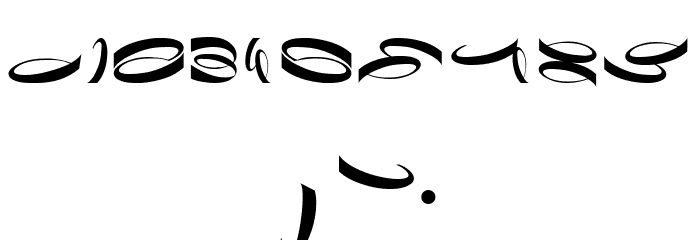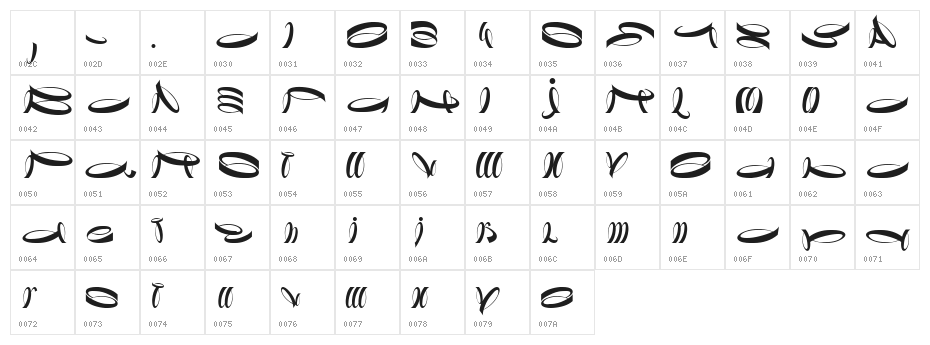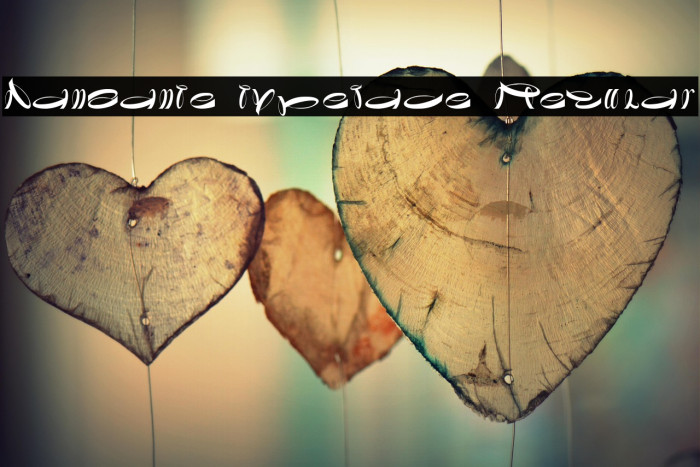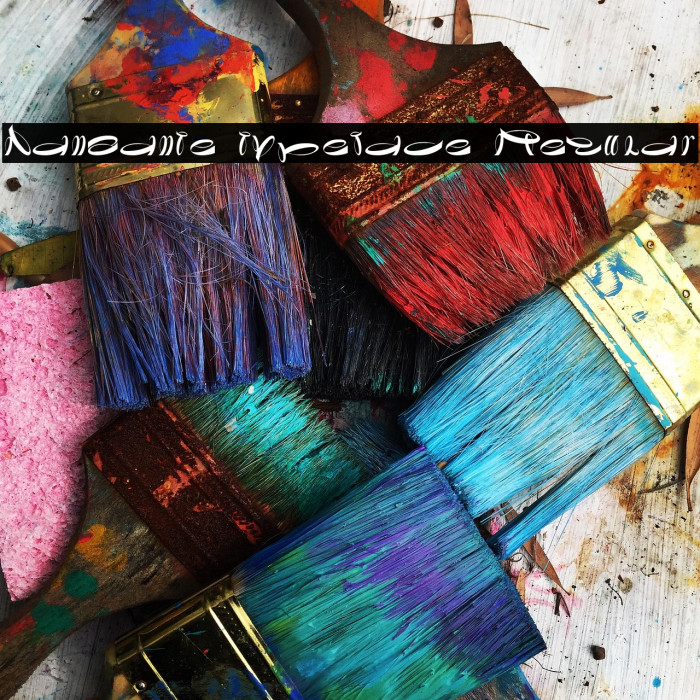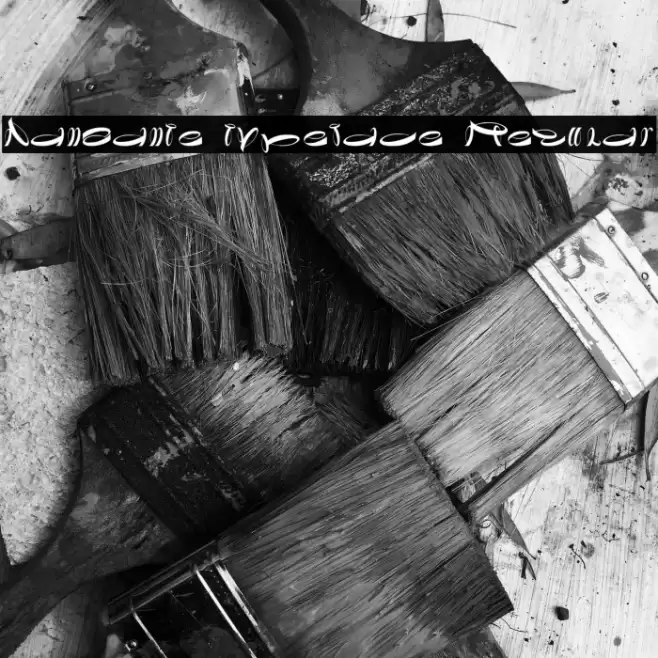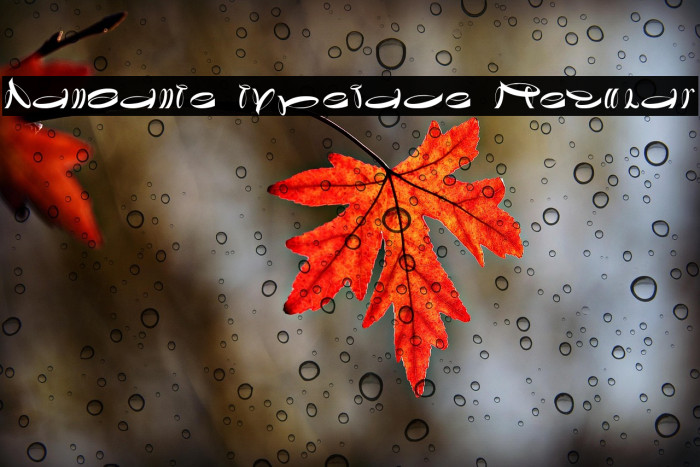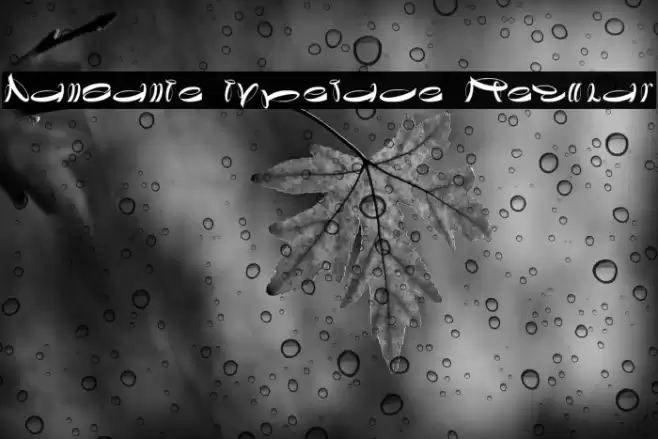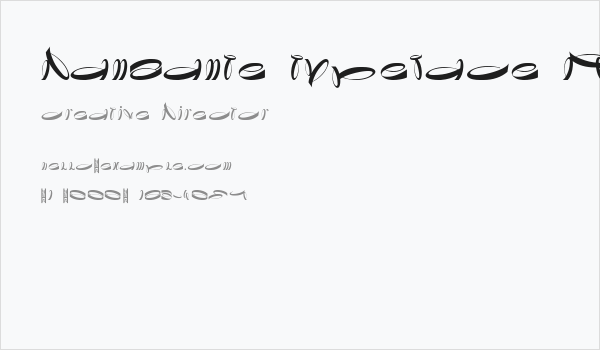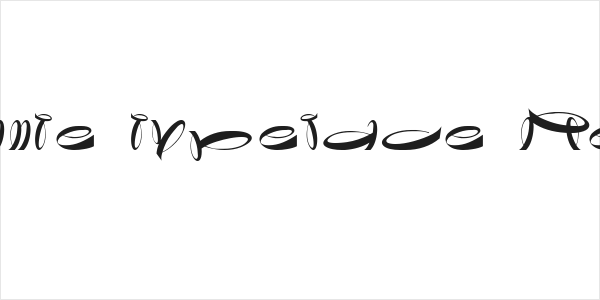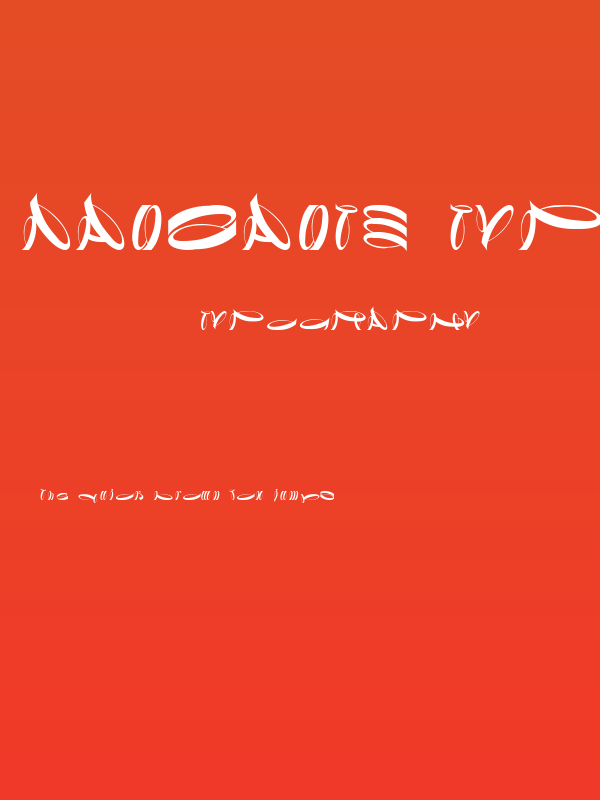
Danzante typeface Regular Font
Danzante typeface Regular Description
This font features a unique and artistic design with flowing, calligraphic strokes that create a sense of movement and elegance. Each character is crafted with intricate curves and loops, giving it a decorative and sophisticated appearance. The uppercase letters exhibit a bold presence with exaggerated flourishes, while the lowercase letters maintain a consistent style with more subtle embellishments. The numerals and special characters are designed to complement the overall aesthetic, ensuring a cohesive look across all text. This font's distinct style makes it ideal for creative projects that require a touch of elegance and flair.
| Proposed Projects | Ideal for wedding invitations, branding, logos, and artistic posters. |